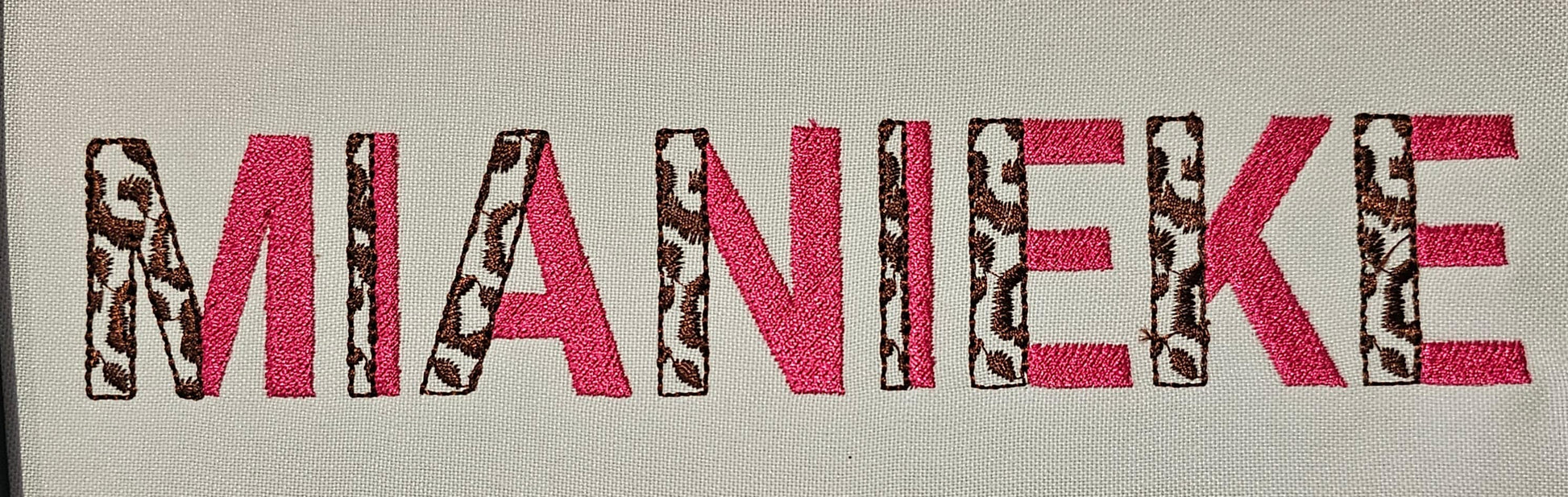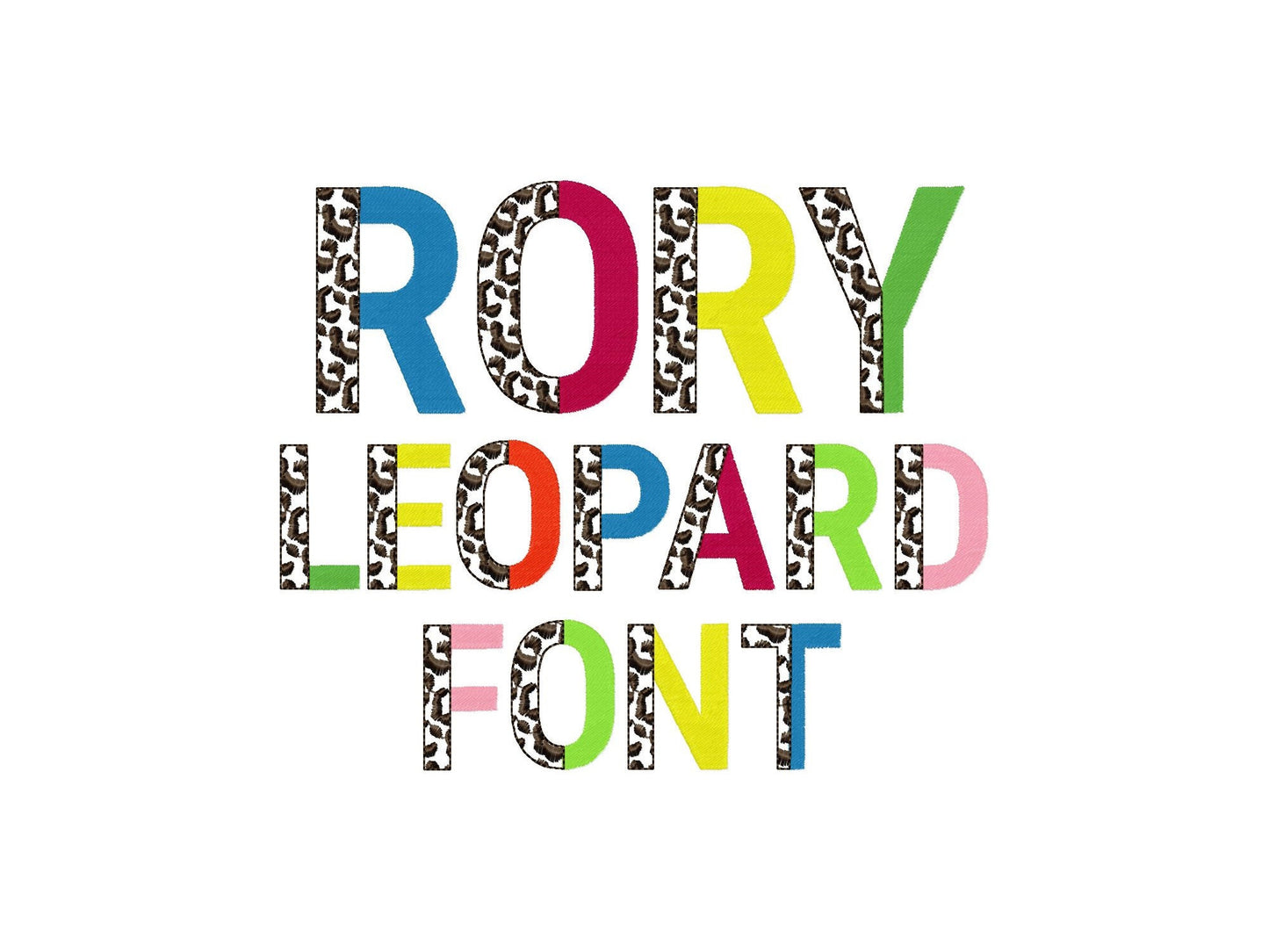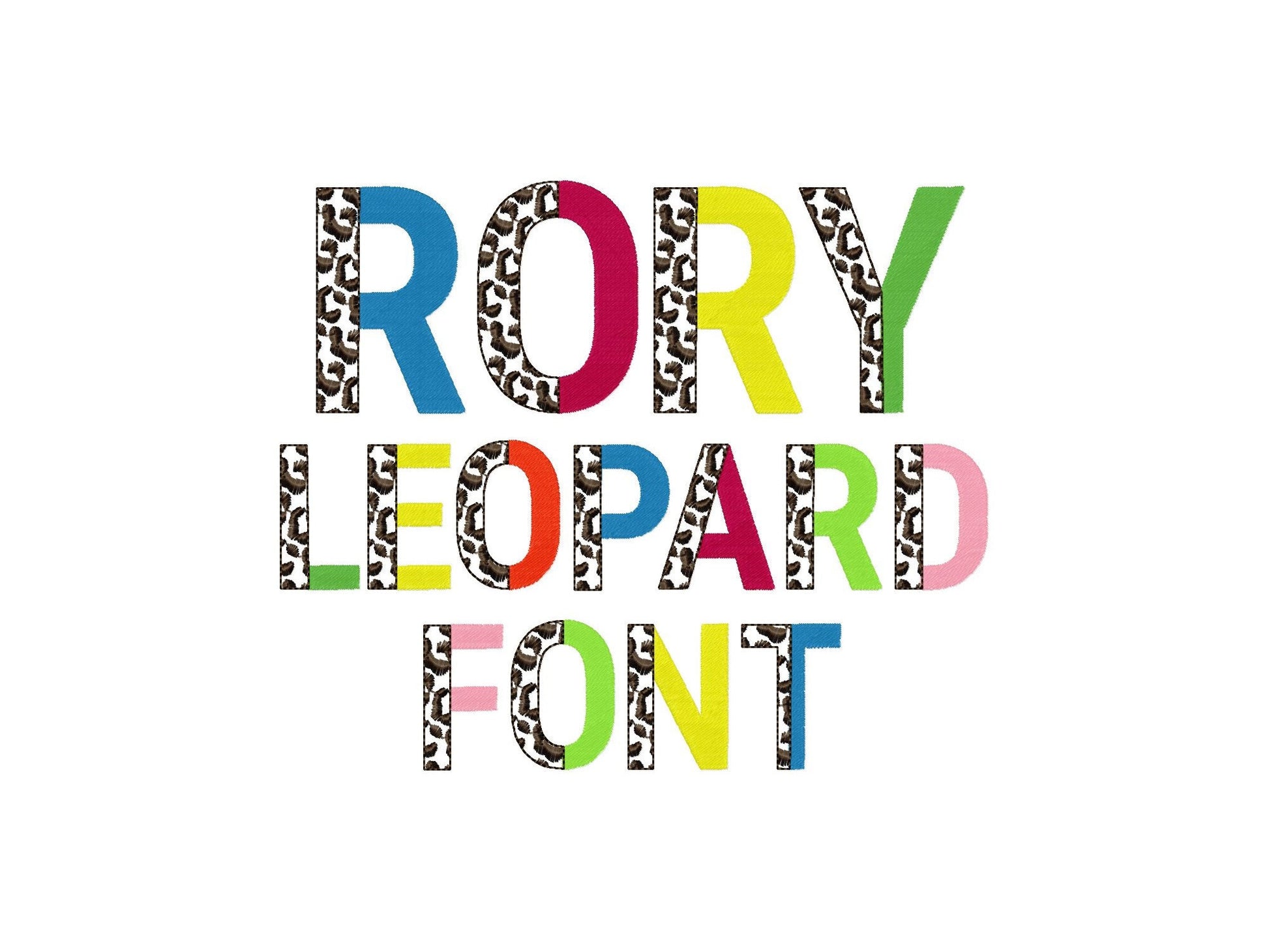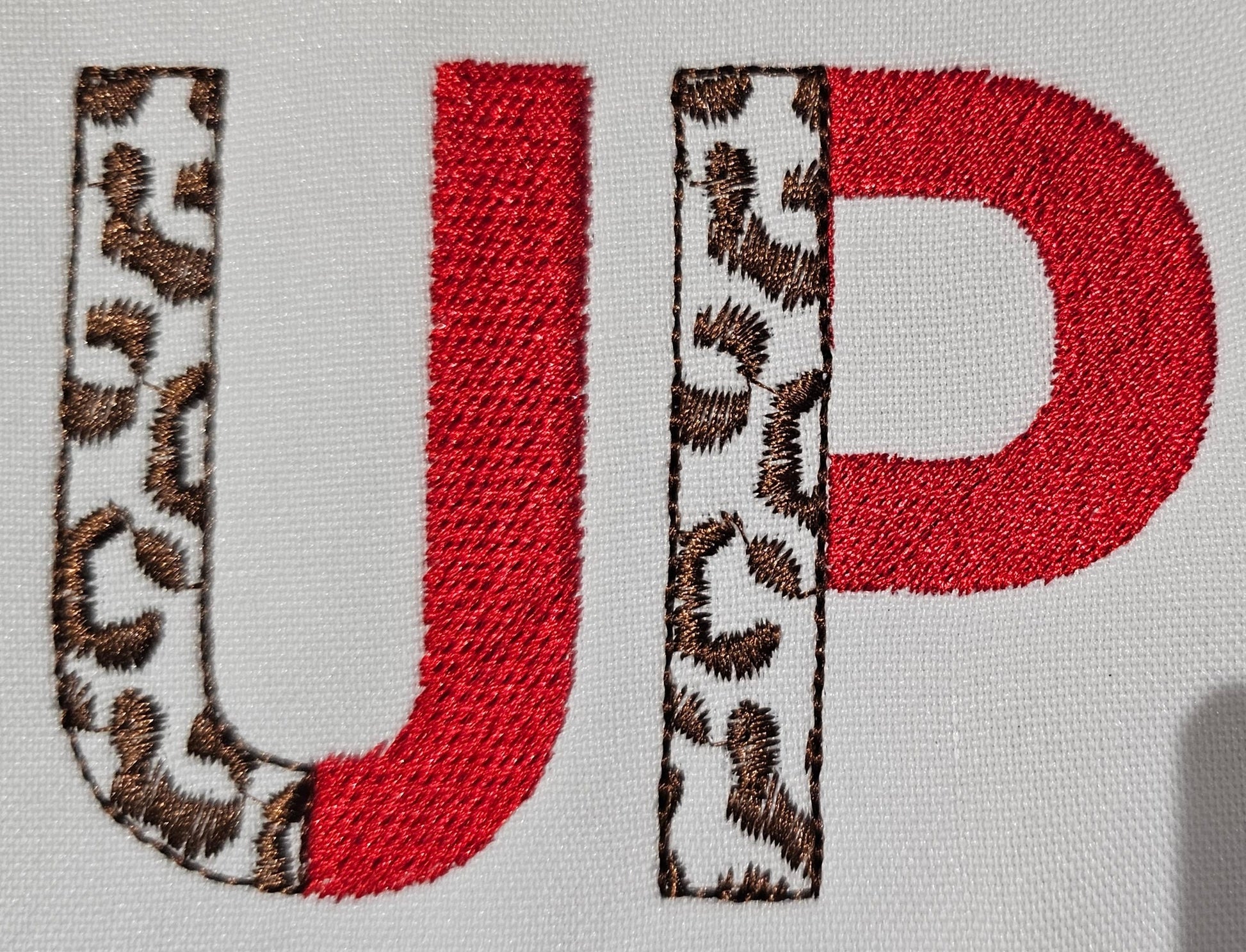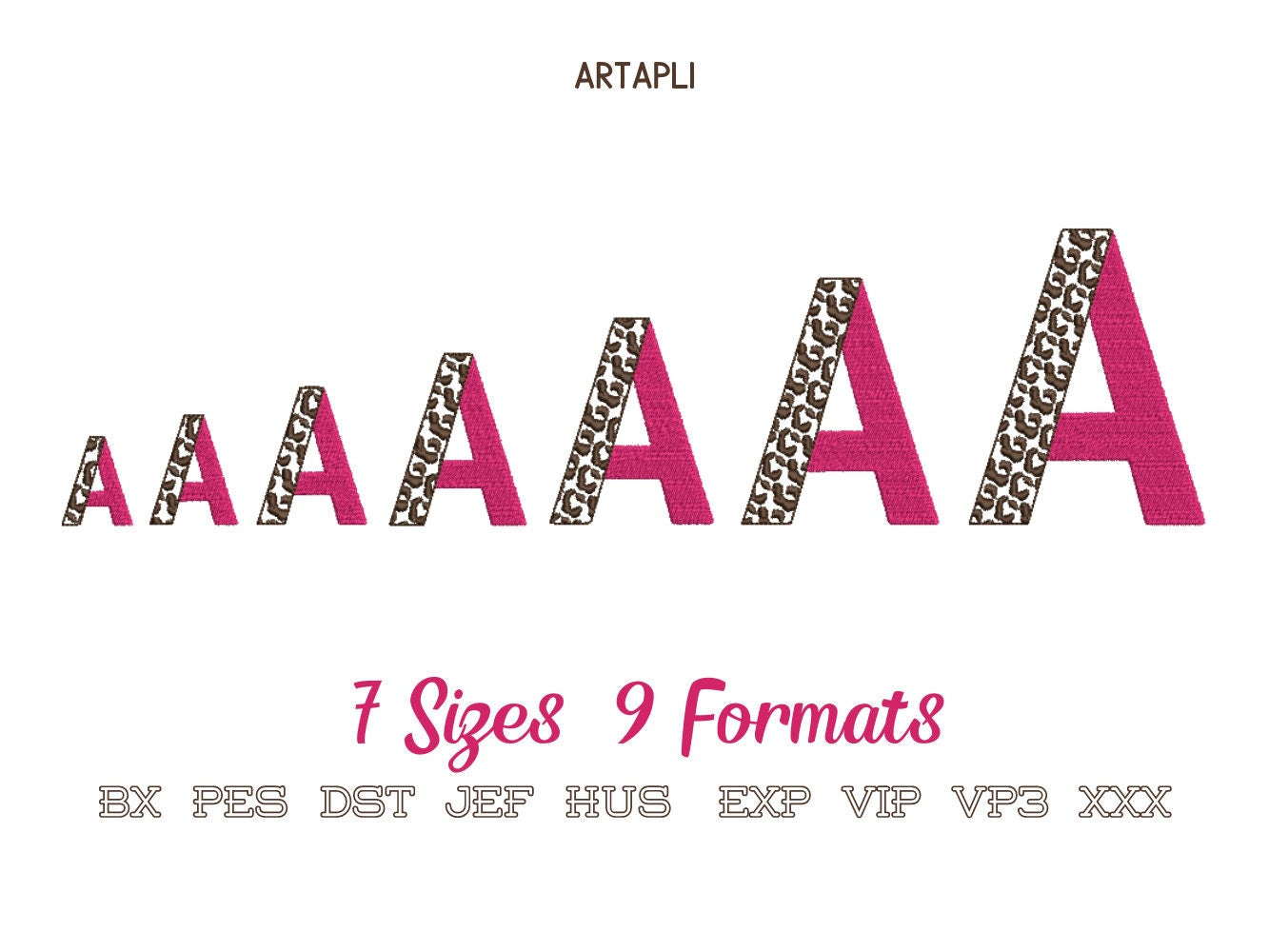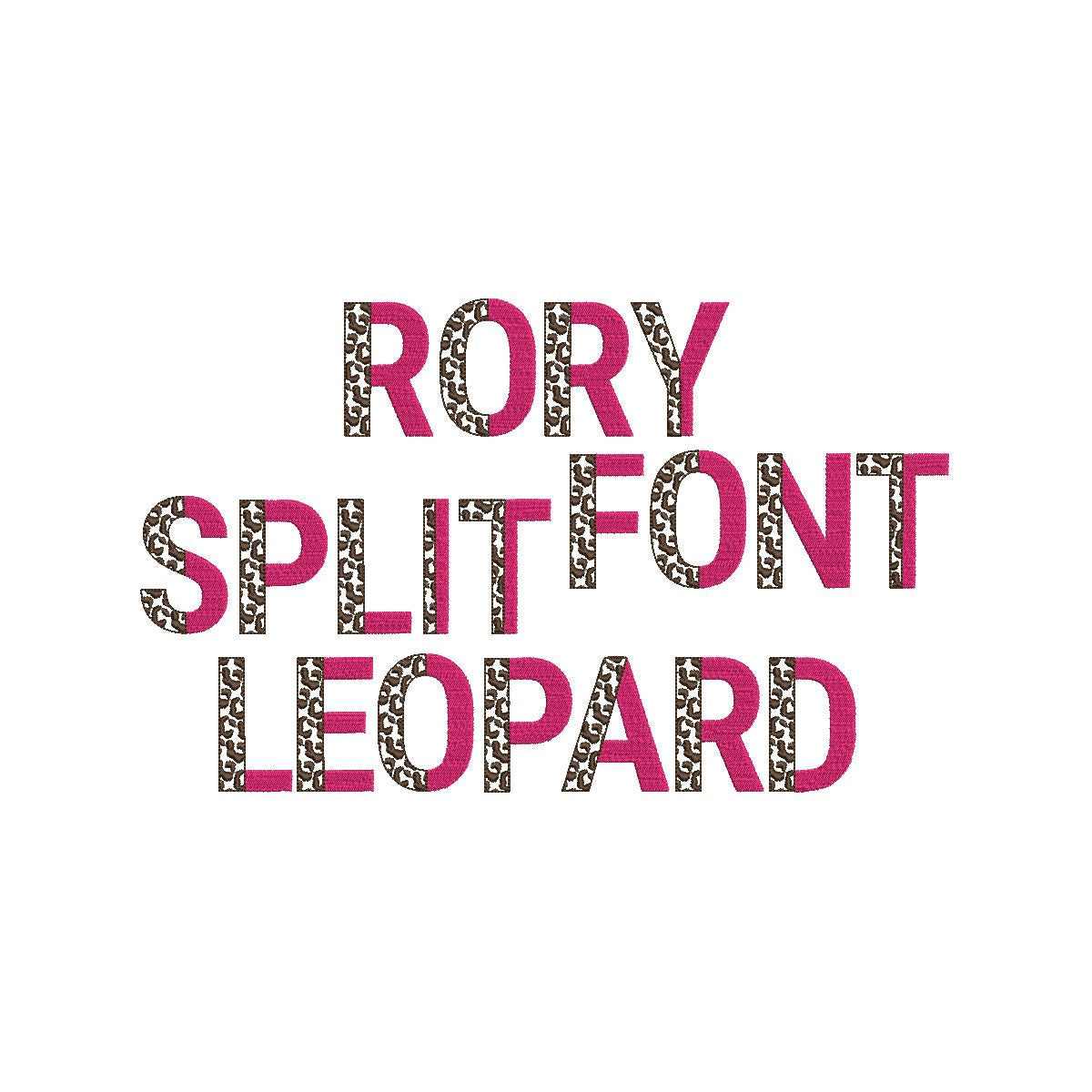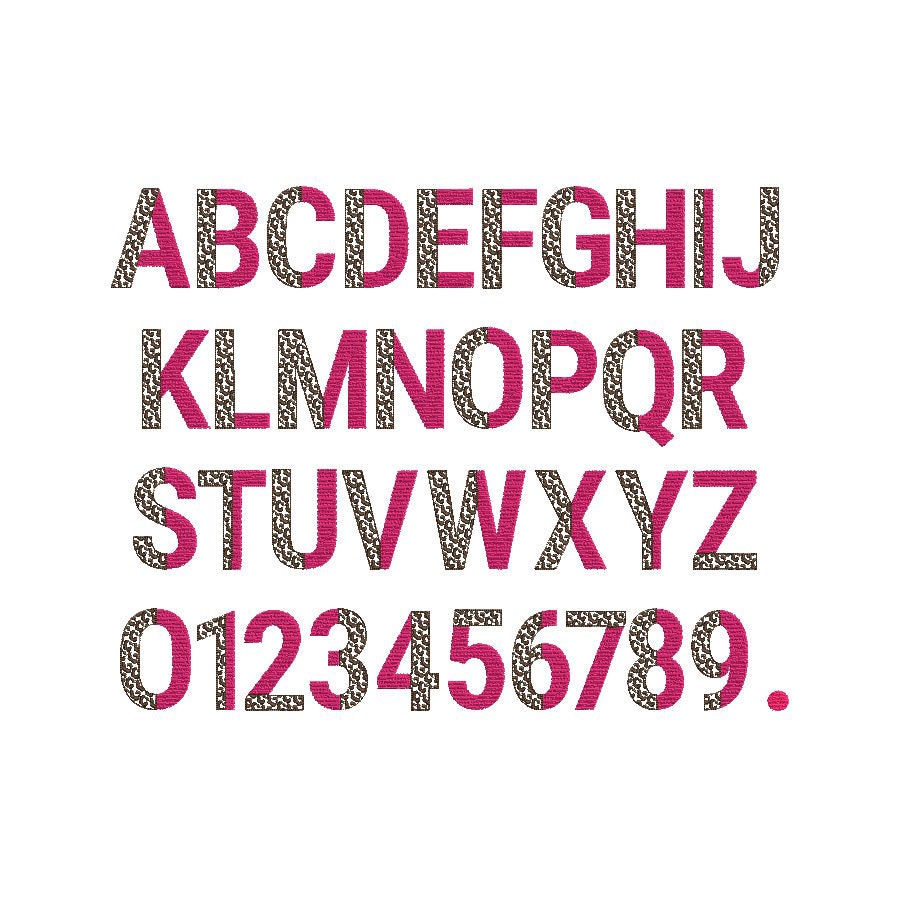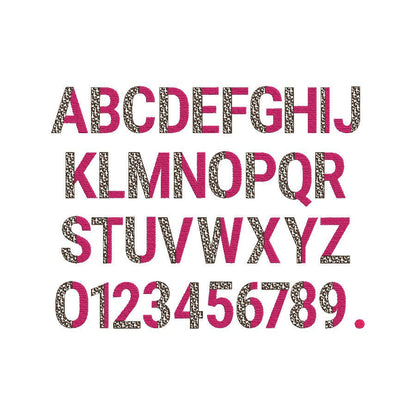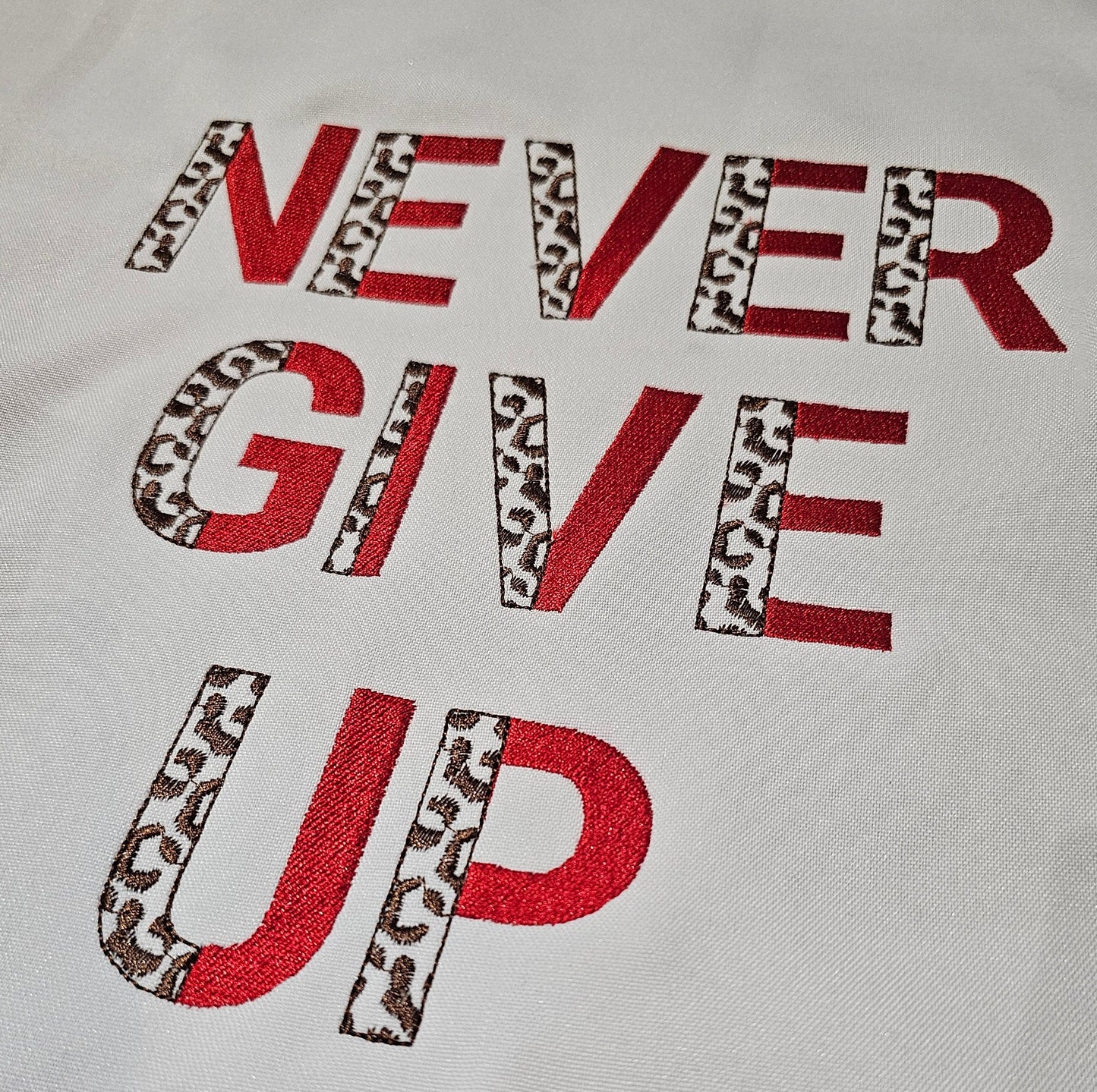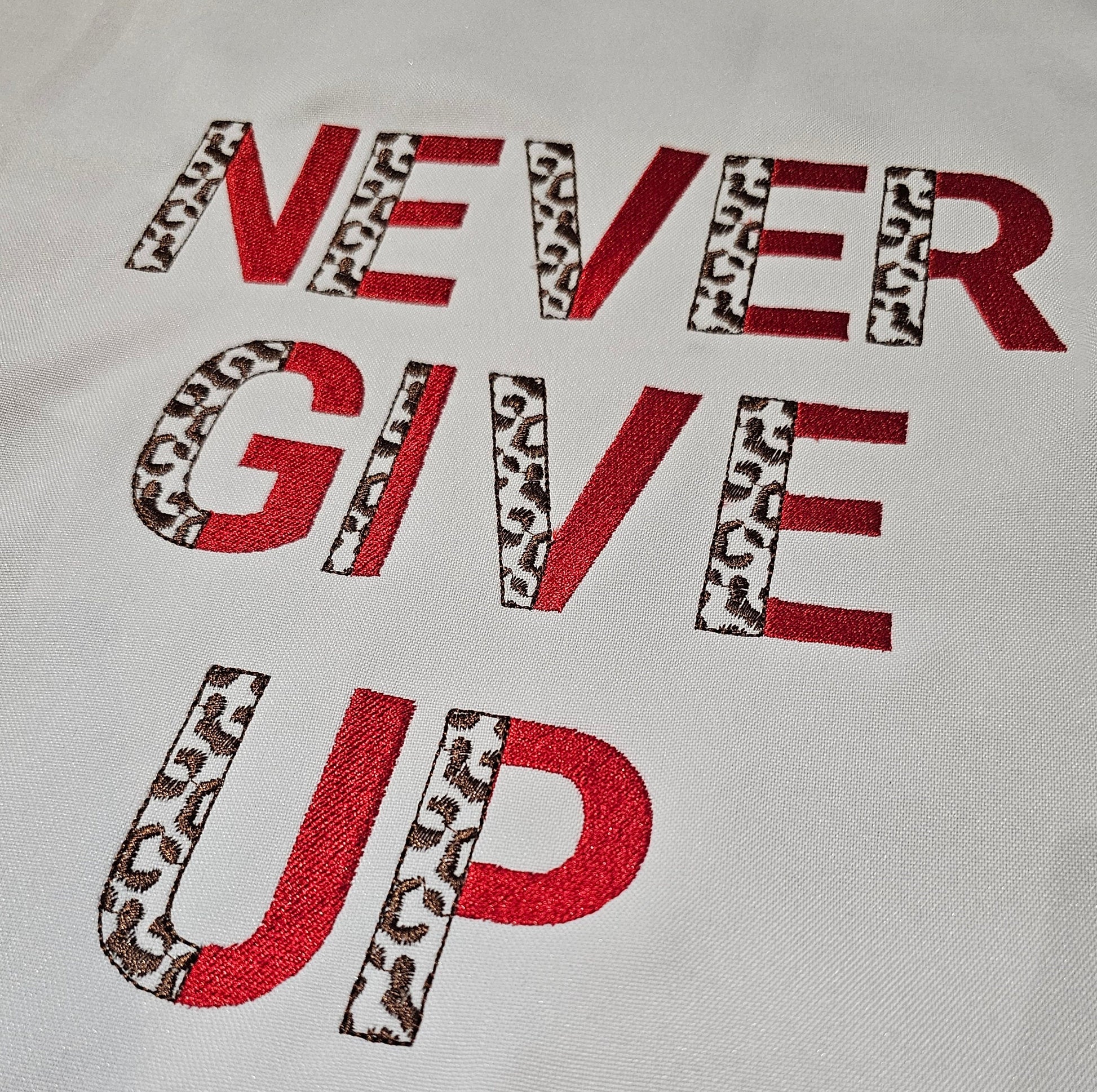
Or click to open the linkA duotone split block font: one half leopard spots, the other half solid fill. Bold for names and monograms on shirts and bags.
The leopard half is open, so the fabric shows through. Uppercase A to Z, numbers 0 to 9 and a period in seven sizes: 1.5, 1.8, 2.2, 2.8, 3.4, 4 and 5 inches.